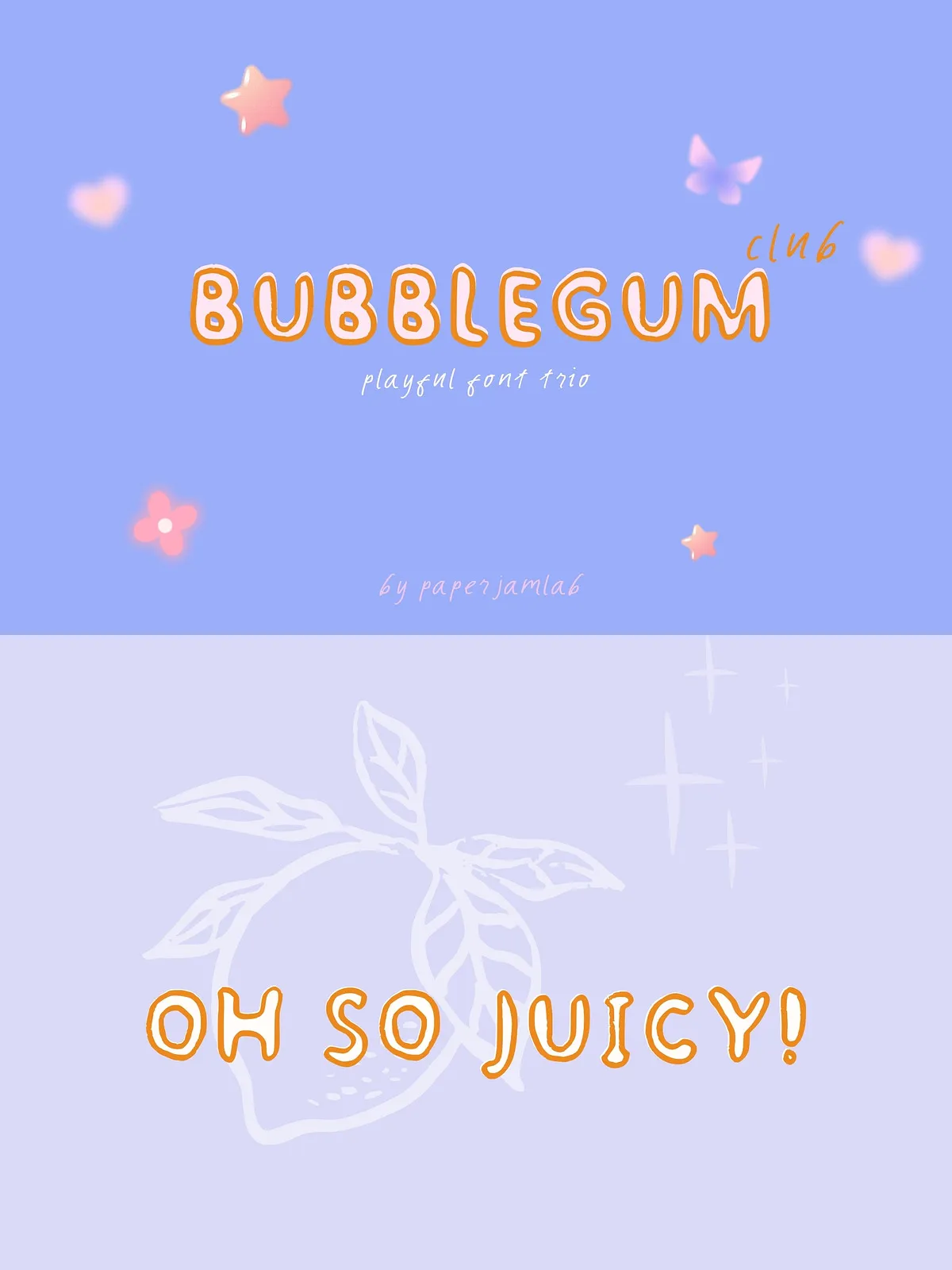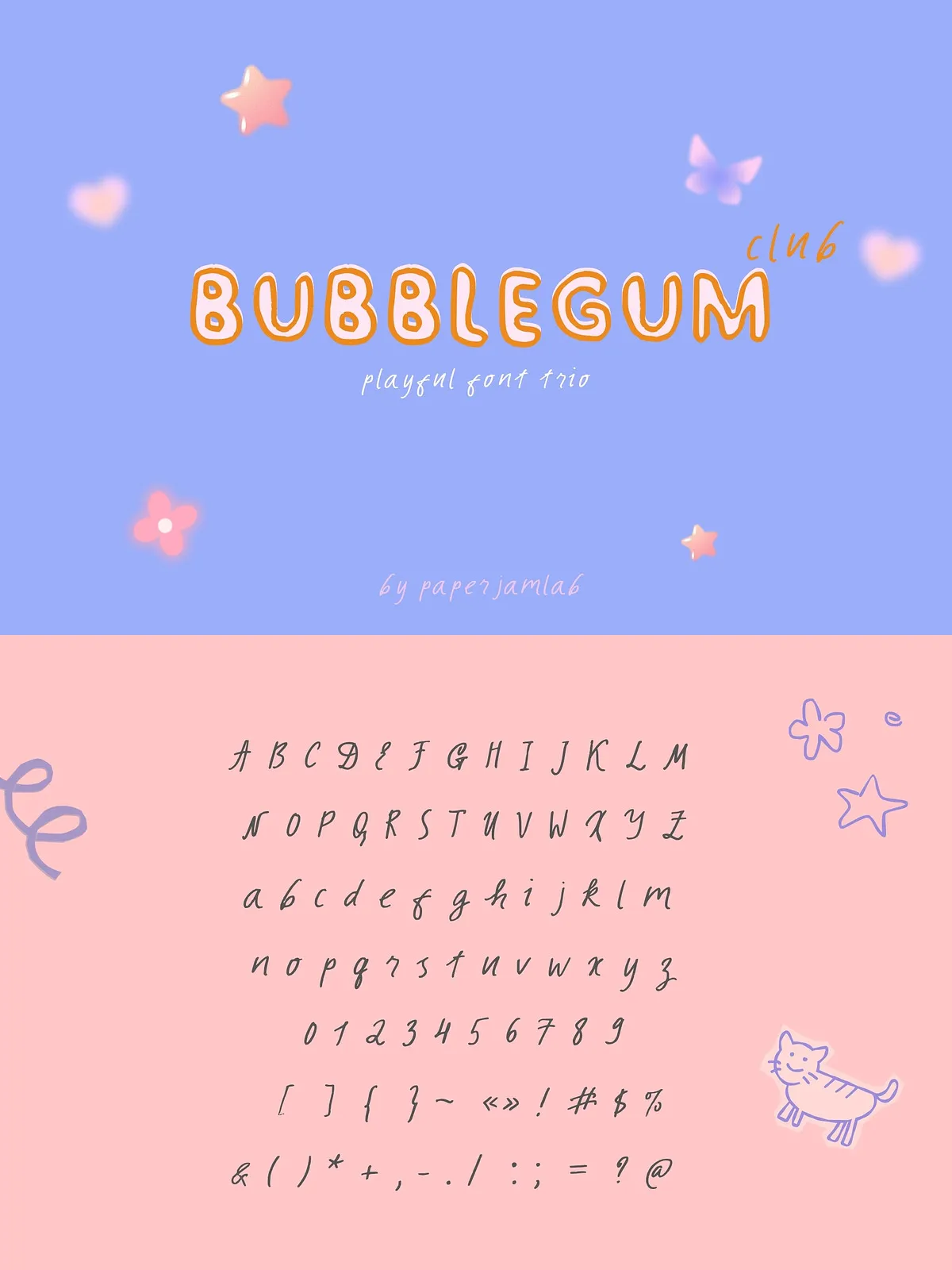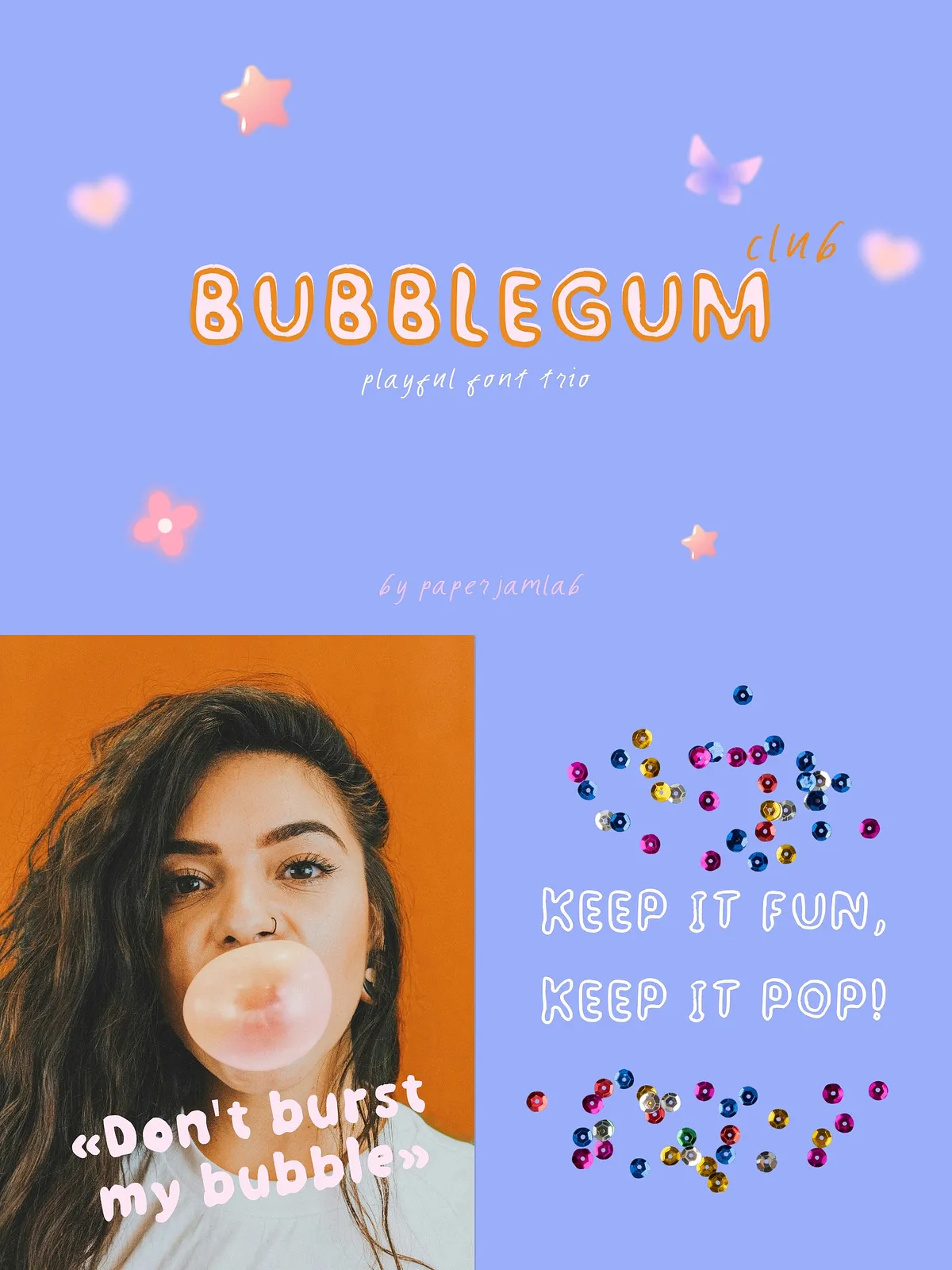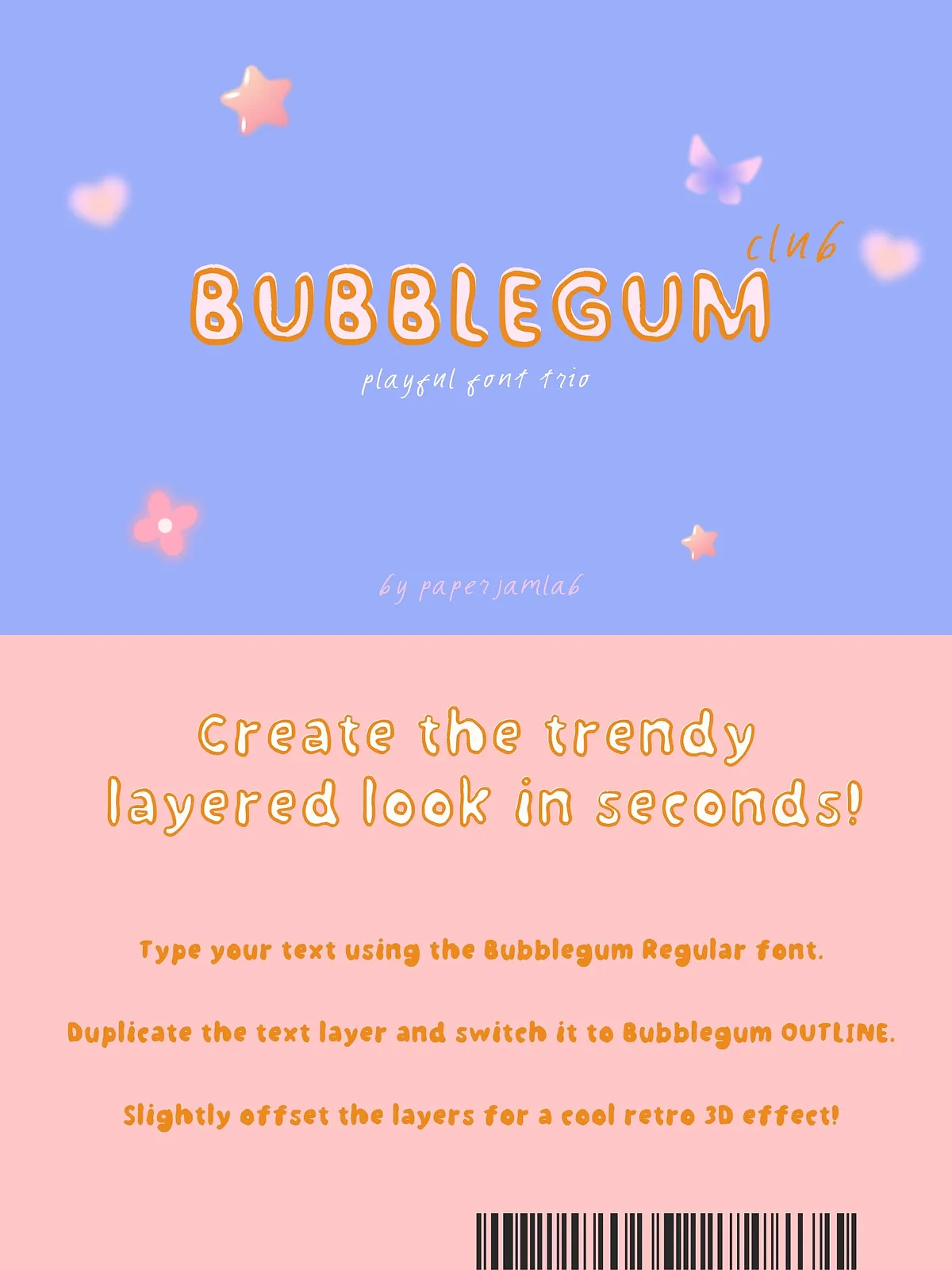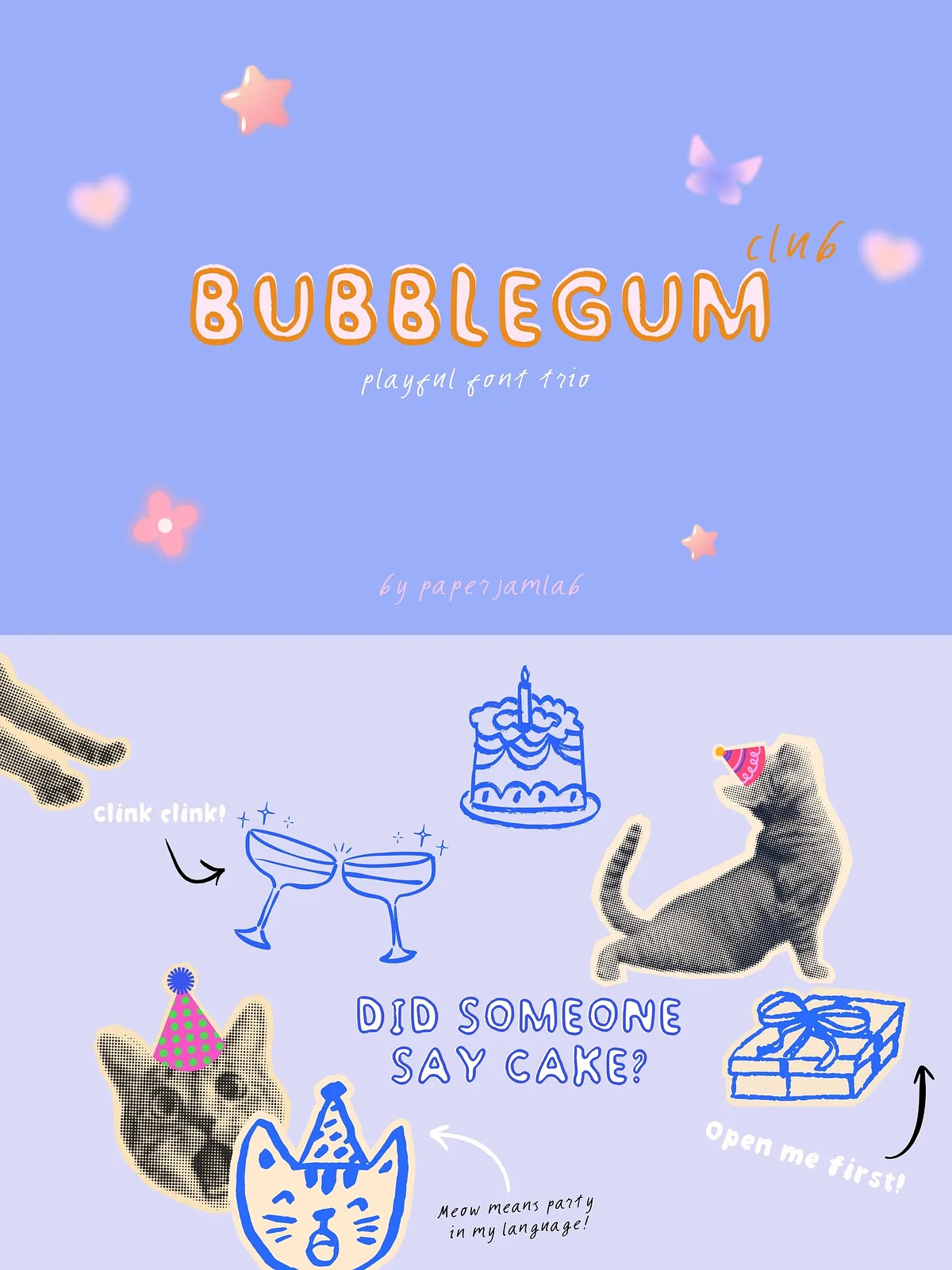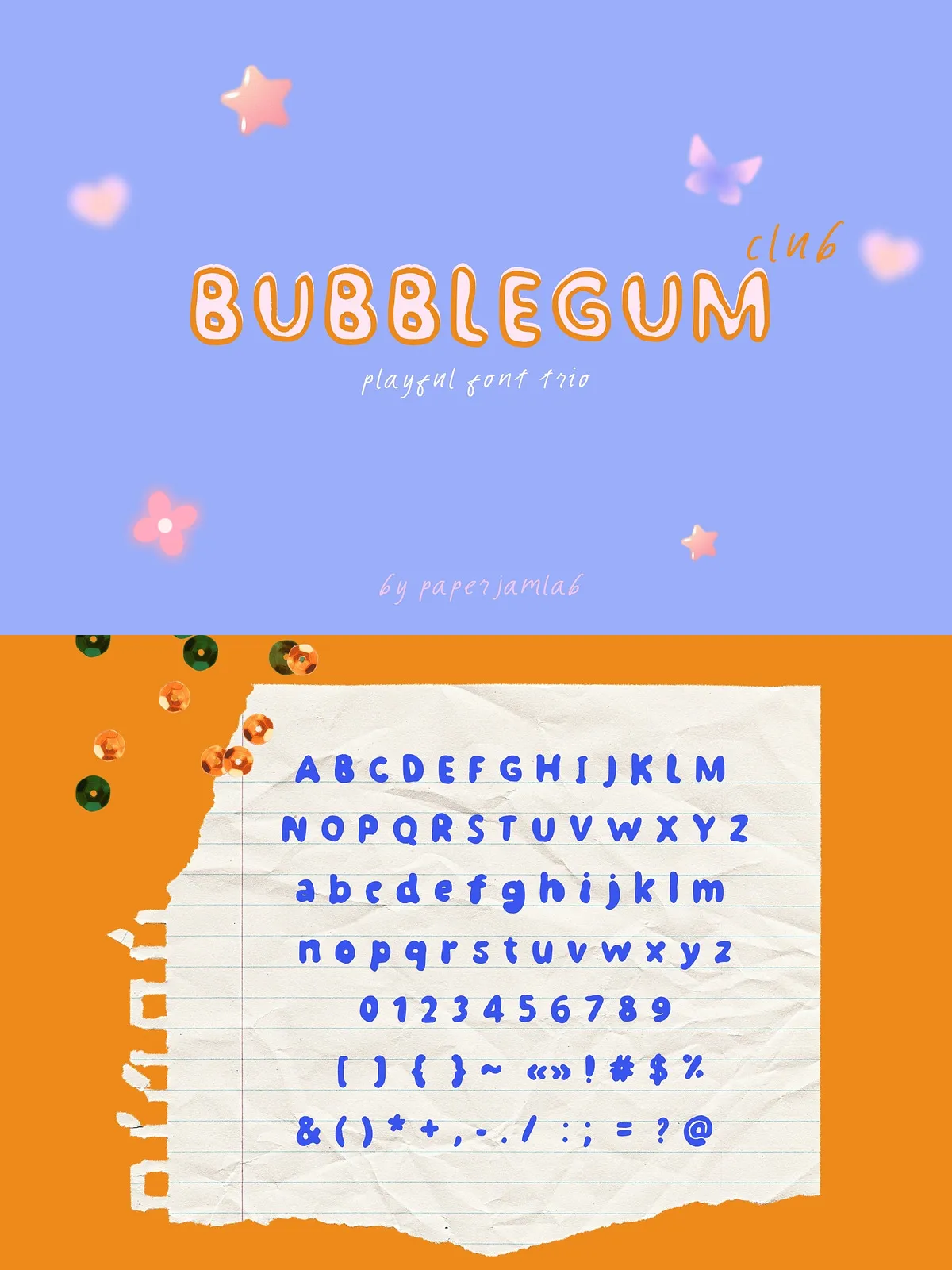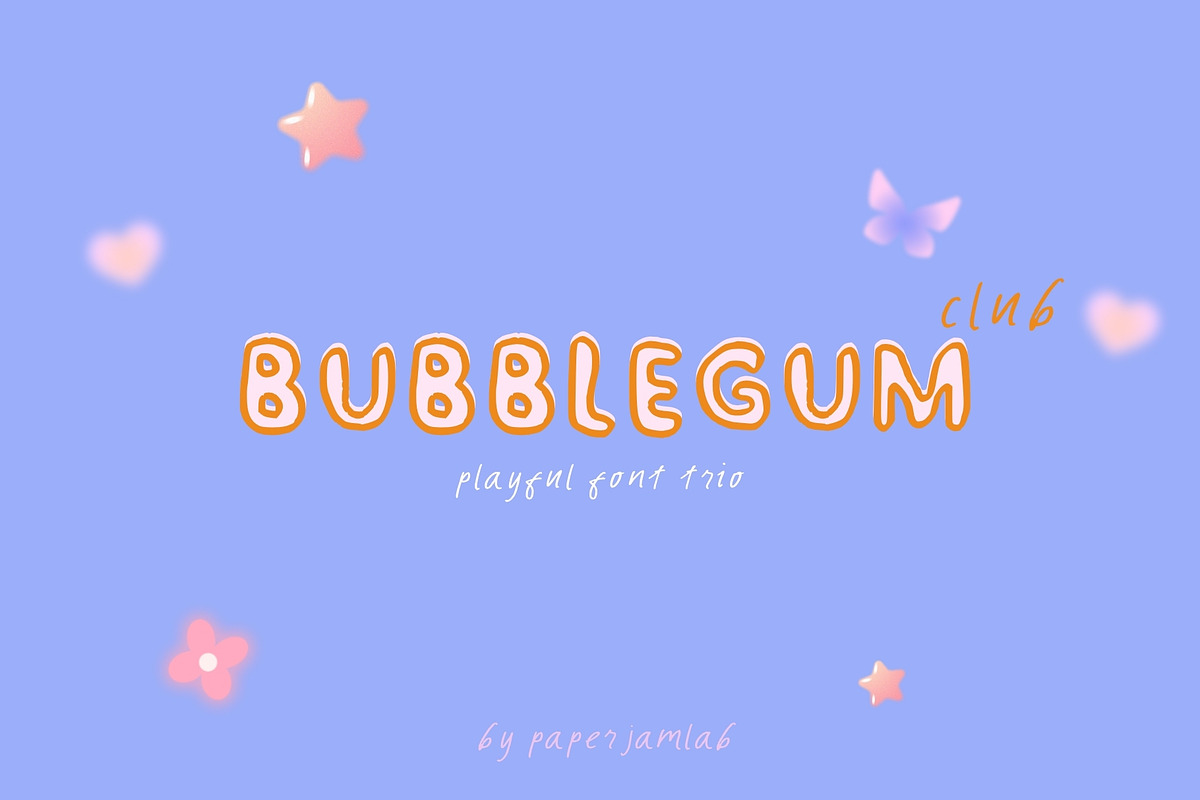
Bubble Gum Club brings bold, joyful energy to any project. Drawing on Y2K nostalgia, retro sticker culture, and vibrant kidcore colorways, this font family actively injects playfulness and personality into headlines, logos, and product art. Each style in the trio serves a clear purpose: the solid Bubble Gum delivers heavy impact, Bubble Gum Outline creates trendy sticker and patch effects, and Bubble Gum Script adds a hand-drawn flourish that softens and humanizes compositions.
Visual Impact
Use Bubble Gum Club when you want your message to shout with friendliness. Thick letterforms, rounded terminals, and compact counters maximize readability while maintaining a whimsical voice. The outline companion layers cleanly over the solid weight to produce pop-art sticker visuals with instant depth. The script variant writes with energetic, imperfect strokes that read as spontaneous and handcrafted — perfect for playful accents and signature-style logotypes.
Primary Uses
Where This Trio Excels
- Playful branding and identity systems — craft logos that feel approachable and fun.
- Sticker packs, enamel pins, and badges — build layered sticker effects by stacking the solid and outline styles.
- Kids’ books, activity pages, and educational materials — present content that reads clearly and entertains young audiences.
- Apparel prints and merchandise — create bold chest prints, tote designs, and enamel pin art.
- Social media graphics and posters — compose thumb-stopping visuals for feeds and stories.
- Retro packaging and Y2K-inspired campaigns — evoke nostalgic charm without losing modern legibility.
Practical Guidance
Pairing Recommendations
Pair Bubble Gum Club with a neutral sans-serif for body text to preserve hierarchy and avoid visual clutter. A clean geometric sans (medium weight) balances the trio’s bubbly strokes and keeps layouts modern. For feminine or softer compositions, combine the script with a thin serif to create contrast without competing ornamentation.
Layering and Effects
Build sticker-style lettering by placing Bubble Gum Outline over the solid Bubble Gum layer, offsetting slightly and adding a colored stroke or drop shadow to mimic cut-paste stickers. Use Bubble Gum Script as a secondary accent — place it over or beside the core wordmark to imply personalization or hand-signed endorsement.
Sizing and Spacing
Reserve the Bubble Gum family for display use: headlines, badges, and short phrases. Maintain generous tracking when composing multiple words to prevent the rounded counters and outlines from colliding. When using the script, increase letter-spacing subtly to preserve legibility at smaller sizes.